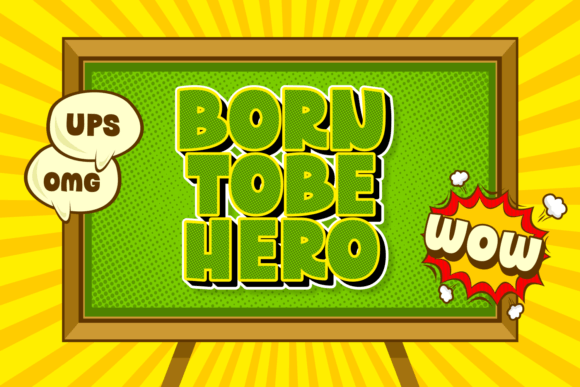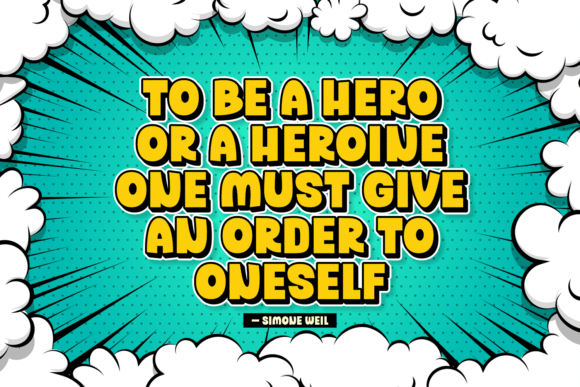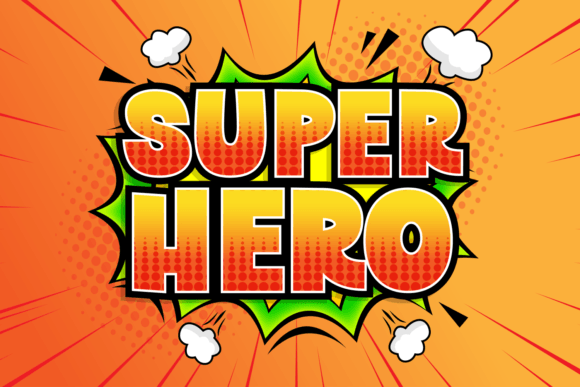
Adding a Touch of Whimsy to Your Designs
Have you ever stumbled upon a font that just makes you smile? For me, it’s those moments of discovery that spark a wave of creative excitement. Maybe it’s the quirky lettering on a vintage sign or the playful typography in a children’s book. Whatever the source, it’s those aha moments that remind us why we love design.
Meet Boss Comic Font, a charming display font that’s sure to bring a smile to your face. This friendly and chubby font is perfect for adding a touch of whimsy to your designs. Whether you’re creating posters, book covers, or product packaging, Boss Comic Font is a valuable addition to any designer’s toolkit.
With its cute and playful characters, Boss Comic Font is a must-have for designers looking to add some visual personality to their projects. So why not add it to your font library today and see what creative possibilities unfold?
Boss Comic Font Key Features
- Font Style: Comic Sans-inspired, bold and playful font.
- Unique Characteristics: Distinctive rounded edges, smooth curves, and a bold weight that sets it apart from other comic fonts.
Boss Comic Font Review
When I first laid eyes on Boss Comic Font, I knew it was going to be a wild ride. This font has a certain je ne sais quoi that’s hard to put into words, but I’ll try my best to break it down for you.
- Unique personality: Boss Comic Font has a quirky, energetic feel that’s perfect for those who want to add some personality to their designs.
- Great for comic books and graphic novels: The font’s bold lines and exaggerated features make it a great choice for comic books and graphic novels.
- Highly customizable: With its many OpenType features, you can customize Boss Comic Font to fit your specific design needs.
- Limited legibility: The font’s bold lines and exaggerated features can make it difficult to read at smaller sizes.
- Not suitable for body text: While Boss Comic Font is great for headlines and titles, it’s not the best choice for body text due to its limited legibility.
Overall, I’d say Boss Comic Font is a solid choice for those who want to add some personality to their designs. While it may not be the best choice for every project, it’s definitely worth considering for those comic books, graphic novels, or posters that need a bold, eye-catching font.
The Boss Comic Font is ideal for comic strips, graphic novels, and digital comics. It’s also great for creating eye-catching headlines and titles in marketing materials, social media posts, and websites.